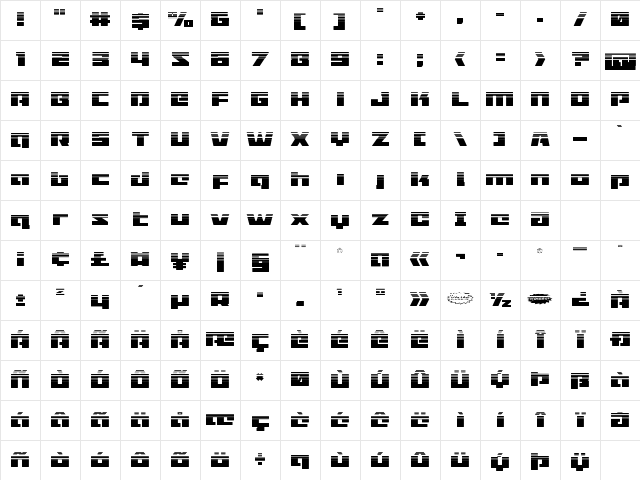
Turbo Charge Halftone Regular Free Font
Turbo Charge Halftone Regular
Turbo Charge Halftone Family
Complete Turbo Charge Halftone Regular glyph index. Displaying only characters natively supported by Turbo Charge Halftone Regular font.
Design Context for Turbo Charge Halftone
Turbo Charge Halftone is a composed and adaptable typeface that performs quietly and consistently across a wide range of design contexts.